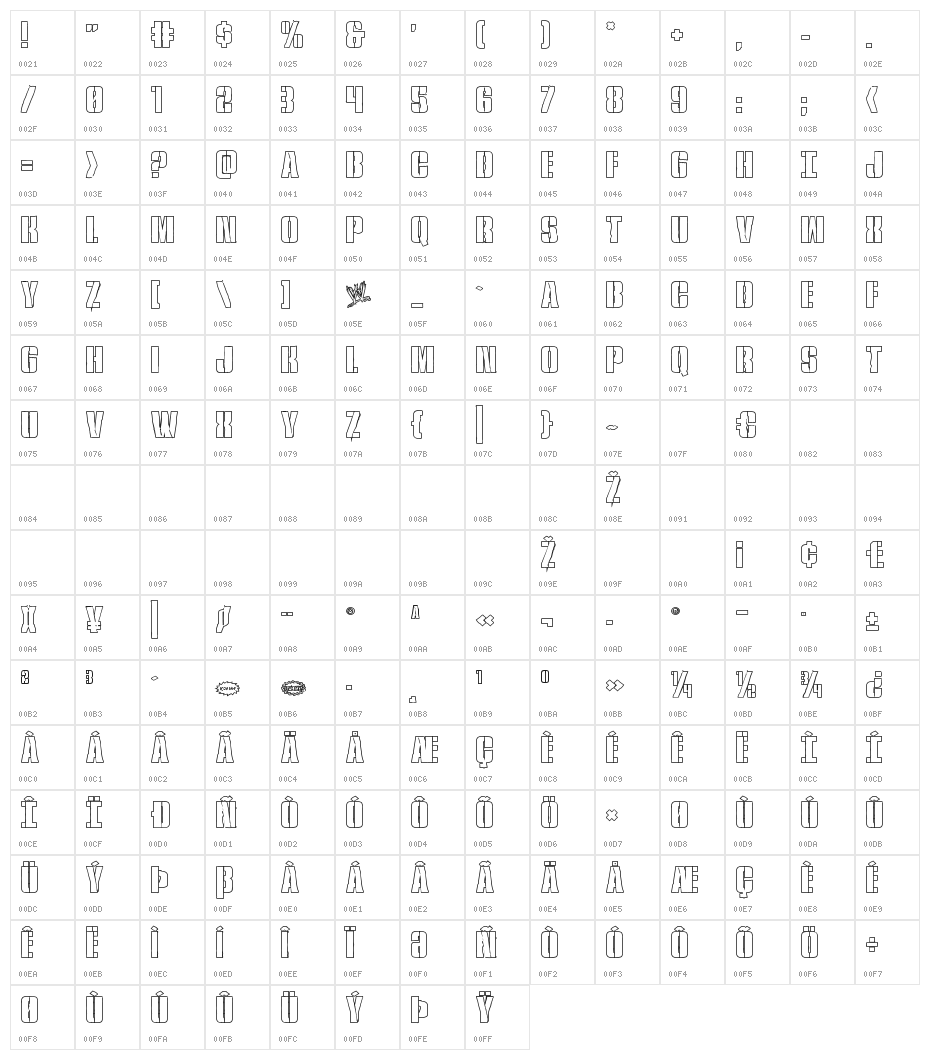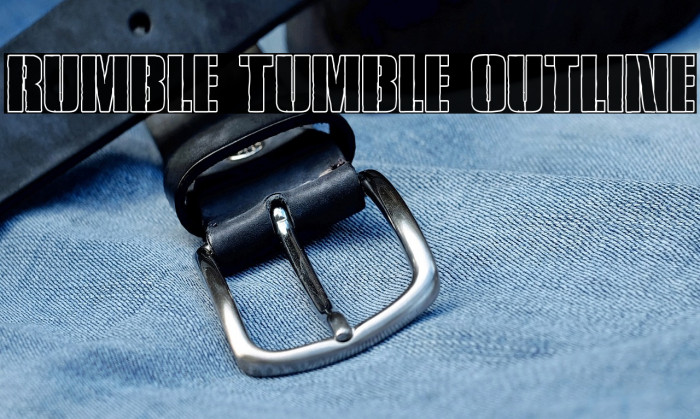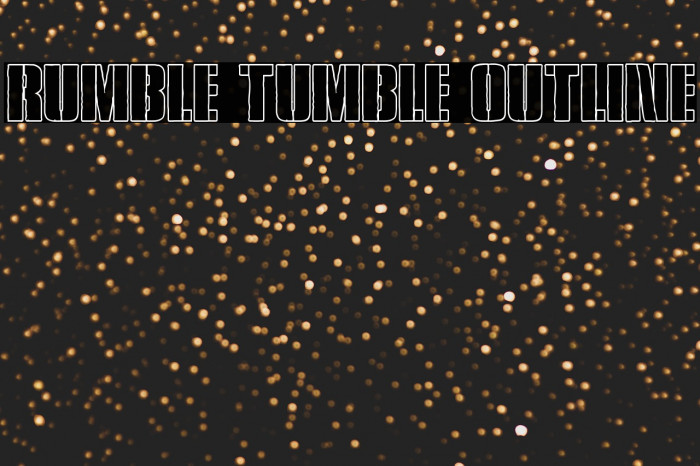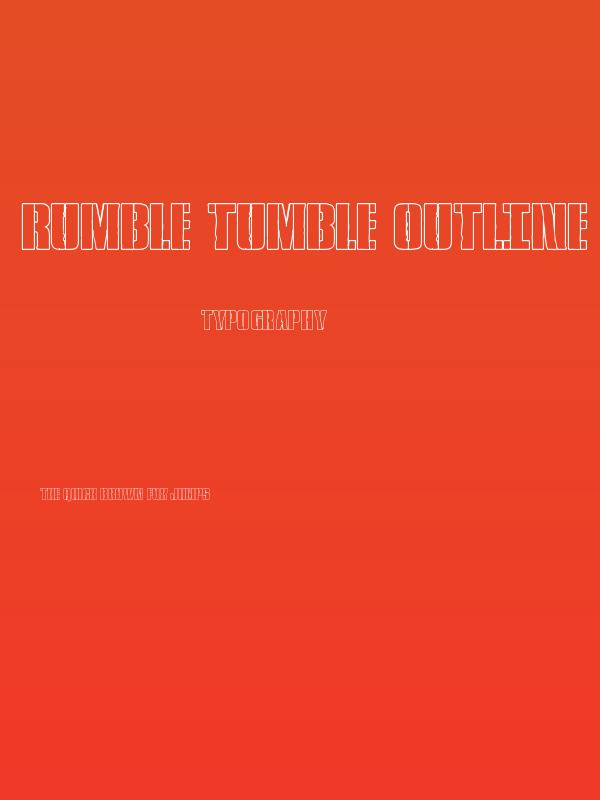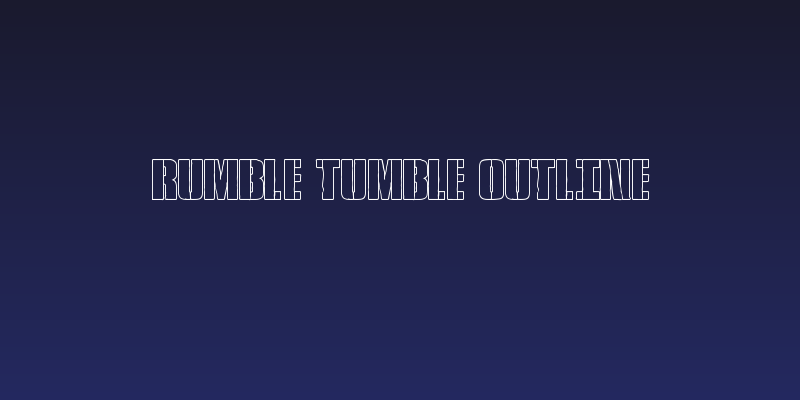
Rumble Tumble Outline Font
Rumble Tumble Outline Description
This font features a bold, outlined style with a rugged, distressed appearance. The characters are uppercase and maintain a consistent height, giving them a uniform look. The outline is thick, creating a strong visual impact, while the interior of each letter has a rough, textured effect that adds a sense of movement and dynamism. This design is reminiscent of urban graffiti or industrial stenciling, making it ideal for projects that require a bold and edgy aesthetic. The numbers and special characters follow the same design principles, ensuring a cohesive look across all elements.
| Overall Style | Urban, Industrial |
| Proposed Projects | Ideal for posters, album covers, streetwear branding, and urban-themed designs. |